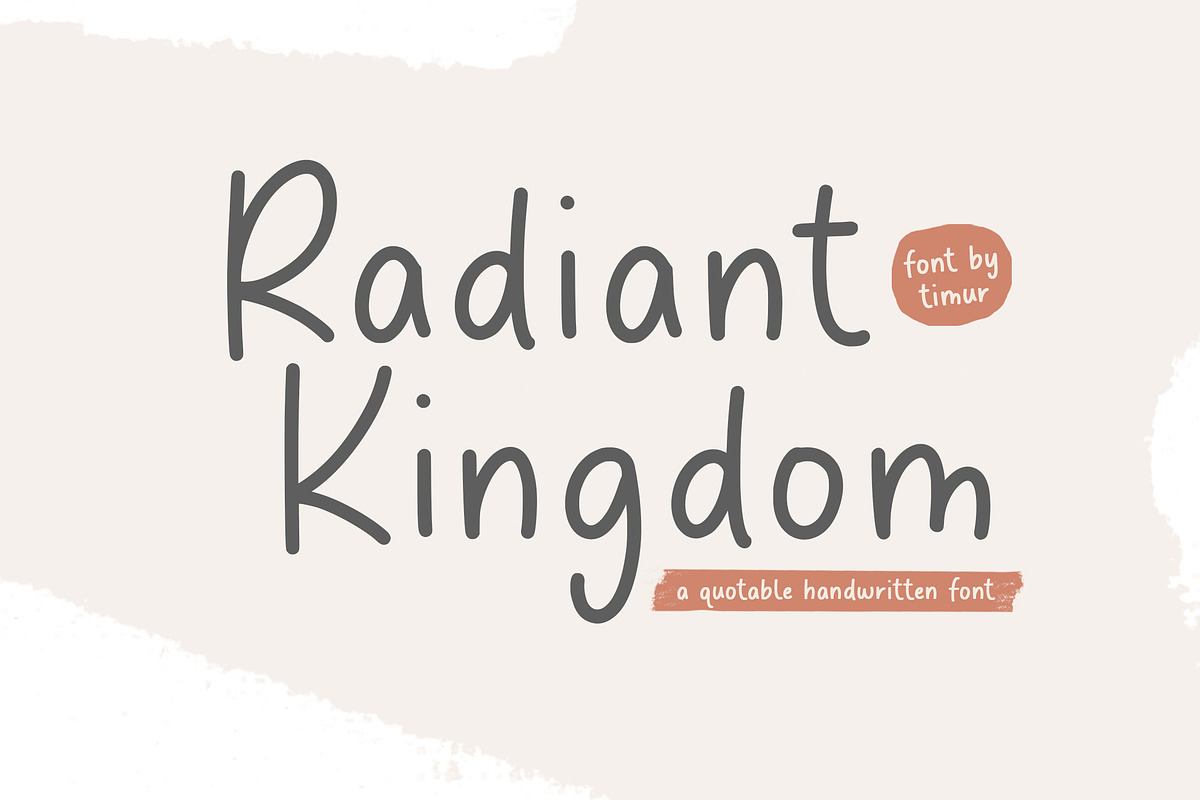
Radiant Kingdom - Quotable Font Free Download
You must purchase this font for commercial use. However, you can download Radiant Kingdom - Quotable Font Free Download for testing purposes. Radiant Kingdom is a charming and elegant font, designed specifically for crafting inspiring quotes, memorable phrases, and impactful headlines. With its stylish yet readable design, it’s perfect for social media posts, motivational posters, branding, invitations, and more.
The smooth curves and thoughtful design of Radiant Kingdom make it ideal for projects that need a clean yet creative touch. Whether you're working on an uplifting quote design, developing a brand identity, or creating an elegant event invitation, this font brings beauty and inspiration to your typography.